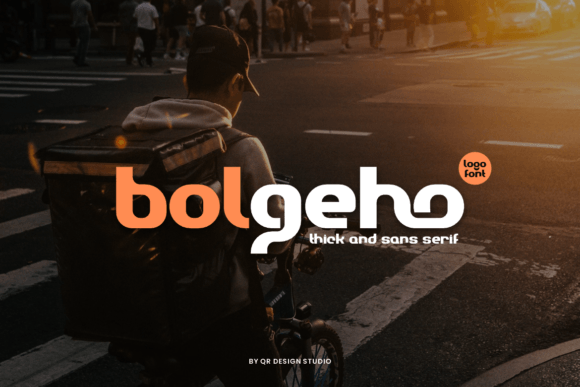
Discover the Unique Charm of Bolgeho Font: Elevate Your Designs to New Heights
Bolgeho is an incredibly unique sans serif font that has been masterfully designed to become a true favorite among designers and crafters. With its clean and modern aesthetic, this font has the potential to bring each of your creative ideas to the highest level. In this article, we’ll dive into the world of Bolgeho Font, exploring its features, benefits, and uses, and why it’s a must-have for any designer or crafter looking to elevate their designs.
The Story Behind Bolgeho Font
Bolgeho Font is a sans serif font that boasts a distinctive and modern look. Its unique design makes it stand out from other fonts, allowing it to add a touch of sophistication and elegance to any design project. The font’s clean lines, precise curves, and balanced proportions make it perfect for use in a wide range of applications, from digital media to print materials.
Key Features of Bolgeho Font
So, what makes Bolgeho Font so special? Here are some of its key features:
- Unique Sans Serif Design: Bolgeho Font features a one-of-a-kind sans serif design that sets it apart from other fonts.
- Clean and Modern Aesthetic: The font’s clean lines, precise curves, and balanced proportions give it a modern and sophisticated look.
- High Versatility: Bolgeho Font can be used in a wide range of applications, from digital media to print materials.
- Easy to Read: The font’s clear and legible design makes it easy to read, even at small sizes.
Benefits of Using Bolgeho Font
So, why should you choose Bolgeho Font for your design projects? Here are some of the benefits of using this amazing font:
- Adds Sophistication and Elegance: Bolgeho Font’s unique design adds a touch of sophistication and elegance to any design project.
- Enhances Readability: The font’s clear and legible design makes it easy to read, even at small sizes.
- Increases Versatility: Bolgeho Font can be used in a wide range of applications, from digital media to print materials.
- Helps to Stand Out: The font’s unique design helps your design project to stand out from the crowd.
Uses of Bolgeho Font
Bolgeho Font is a versatile font that can be used in a wide range of applications, including:
- Digital Media: Use Bolgeho Font in your website, social media, and other digital media to add a touch of sophistication and elegance.
- Print Materials: Use the font in your print materials, such as brochures, flyers, and business cards, to make them stand out.
- Branding and Identity: Use Bolgeho Font to create a unique and memorable brand identity.
- Packaging Design: Use the font to create eye-catching packaging designs that stand out on store shelves.
Tips for Using Bolgeho Font
Here are some tips for using Bolgeho Font effectively:
- Use it Sparingly: Use Bolgeho Font sparingly to make it stand out. Overusing the font can make your design look cluttered and messy.
- Pair it with Other Fonts: Pair Bolgeho Font with other fonts to create a unique and interesting design.
- Experiment with Different Sizes: Experiment with different sizes to find the perfect size for your design.
In conclusion, Bolgeho Font is an incredibly unique sans serif font that has the potential to bring each of your creative ideas to the highest level. With its clean and modern aesthetic, high versatility, and ease of use, this font is a must-have for any designer or crafter looking to elevate their designs. Whether you’re working on a digital media project, print materials, or branding and identity, Bolgeho Font is the perfect choice.